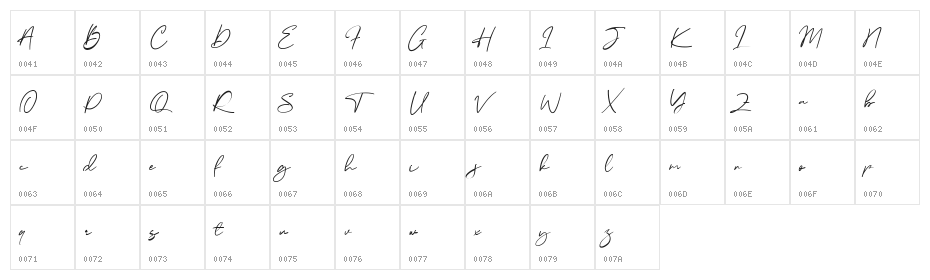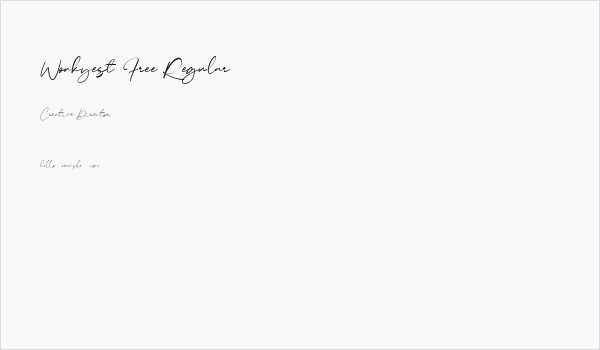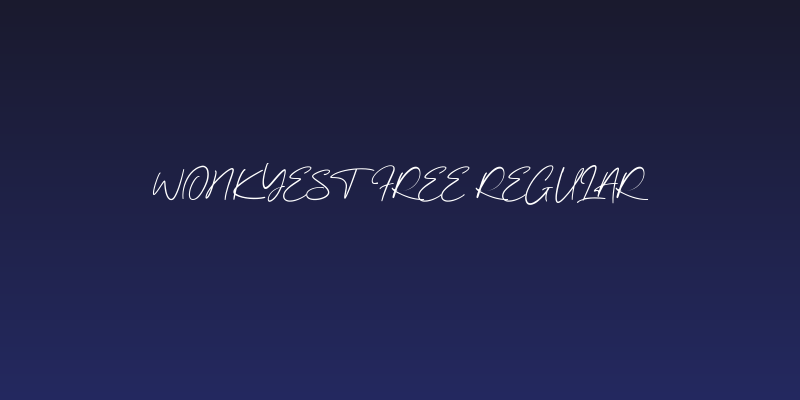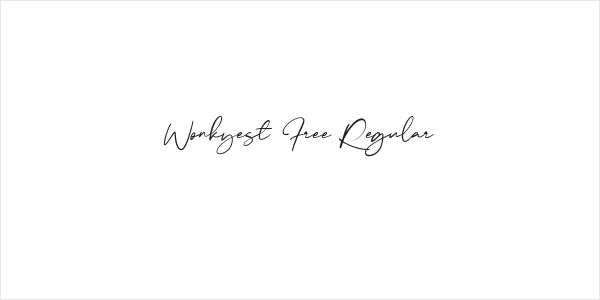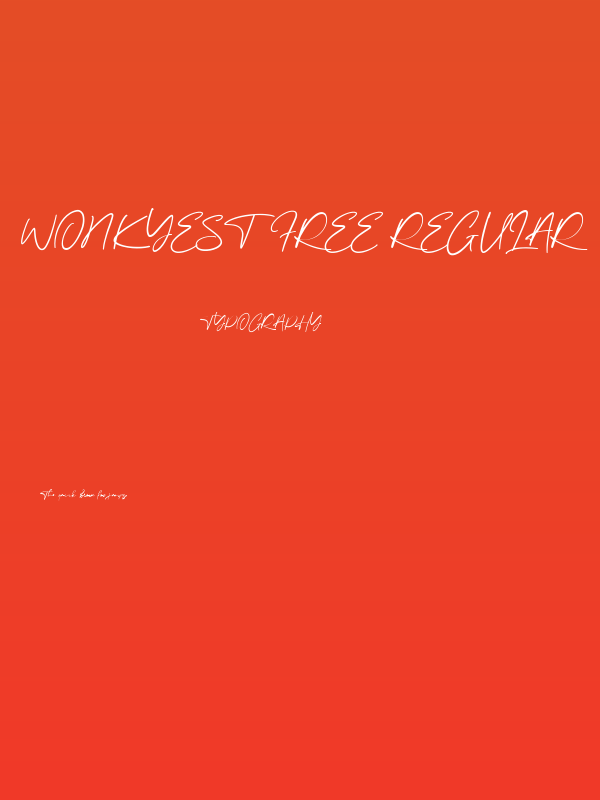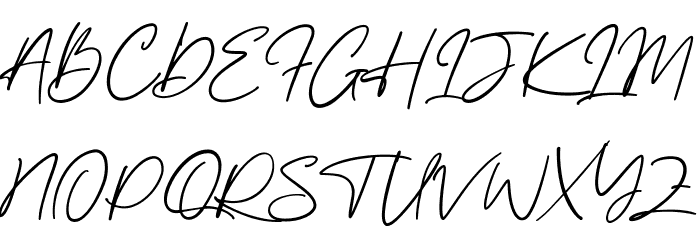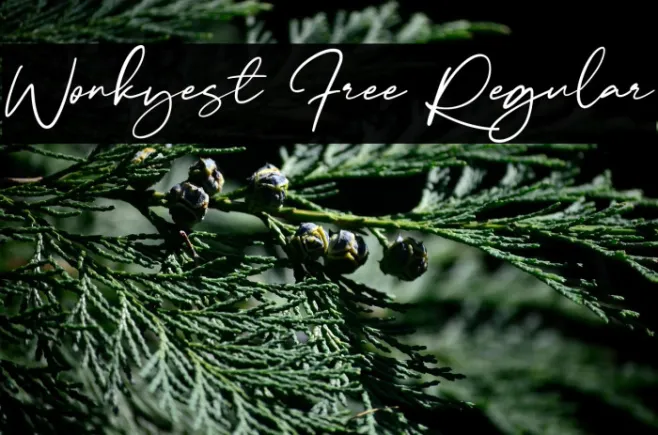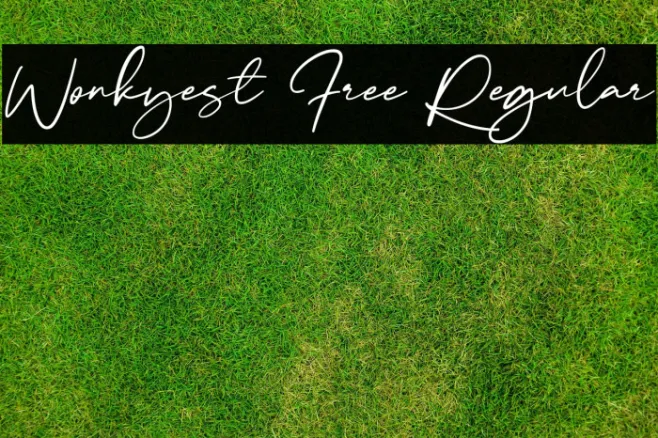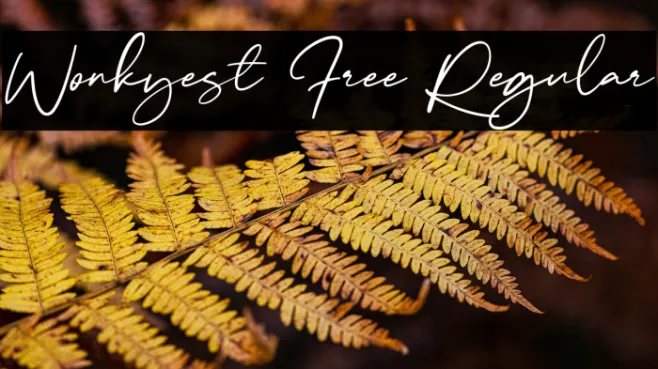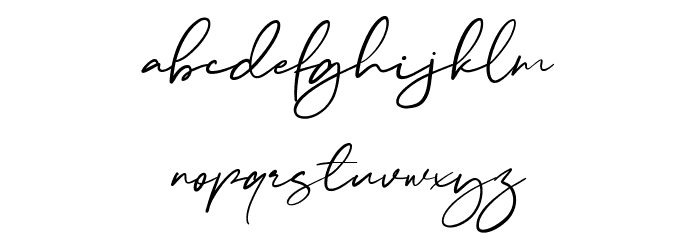
Wonkyest Free Regular Font
Wonkyest Free Regular Description
A flowing, cursive script font with a handwritten style, featuring elegant and elongated letterforms.
| Use Case | Logos, Headlines |
| Proposed Projects | Invitations, greeting cards, personal branding. |